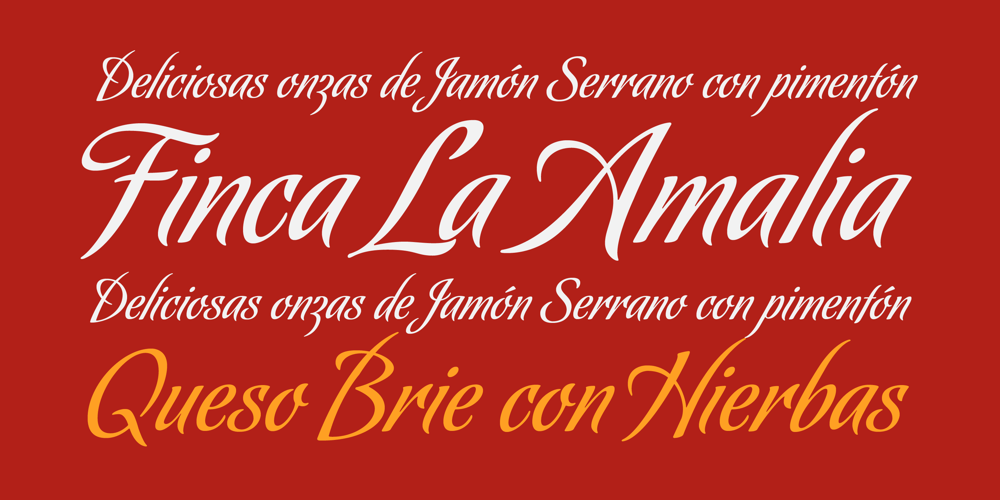
Koziupack
Koziupack font
Koziupack Font Family was designed by Alejandro Paul, Angel Koziupa and published by Sudtipos. Koziupack contains 1 styles and family package options. Wild and free as usual, but now with a touch of sharp focus presented in curled ascenders and descenders, swashy care-free caps, and very unique figures. Koziupack is the ideal choice of font for food and drink product labels, signage, magazine advertisements. It looks particularly great when accenting any work of modern illustration, or by itself brightly knocked out of a dark background. Designed by Koziupa and digitized by Ale Paul.